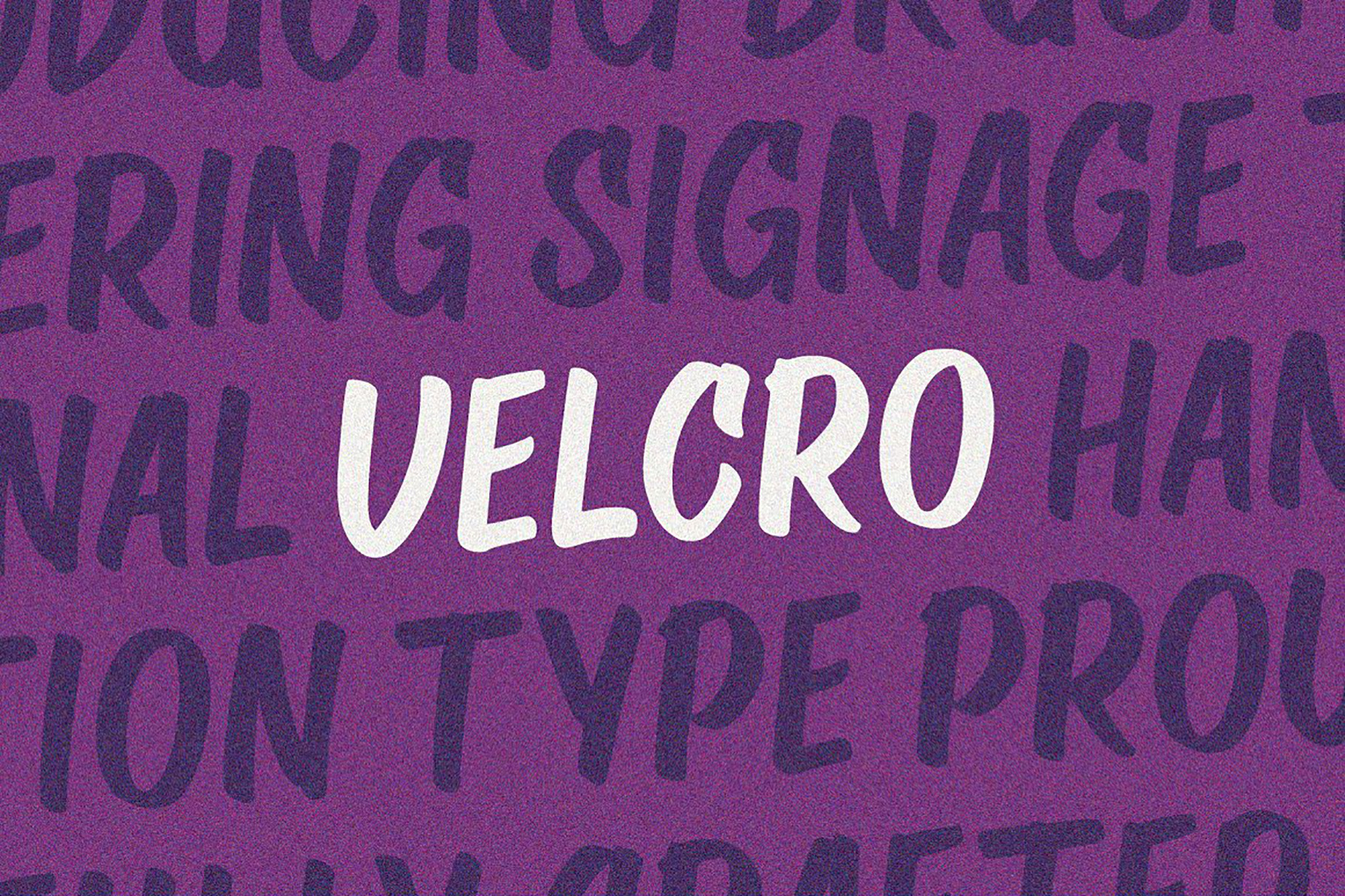
VT VELCRO - Brush Font
New font release! Velcro is a font with brush lettering style. Original handwriting with curves that are different from each character. Perfect for various design purposes such as posters, quote, packaging, merchandise and more. Strong for retro or vintage designs. File Feature: